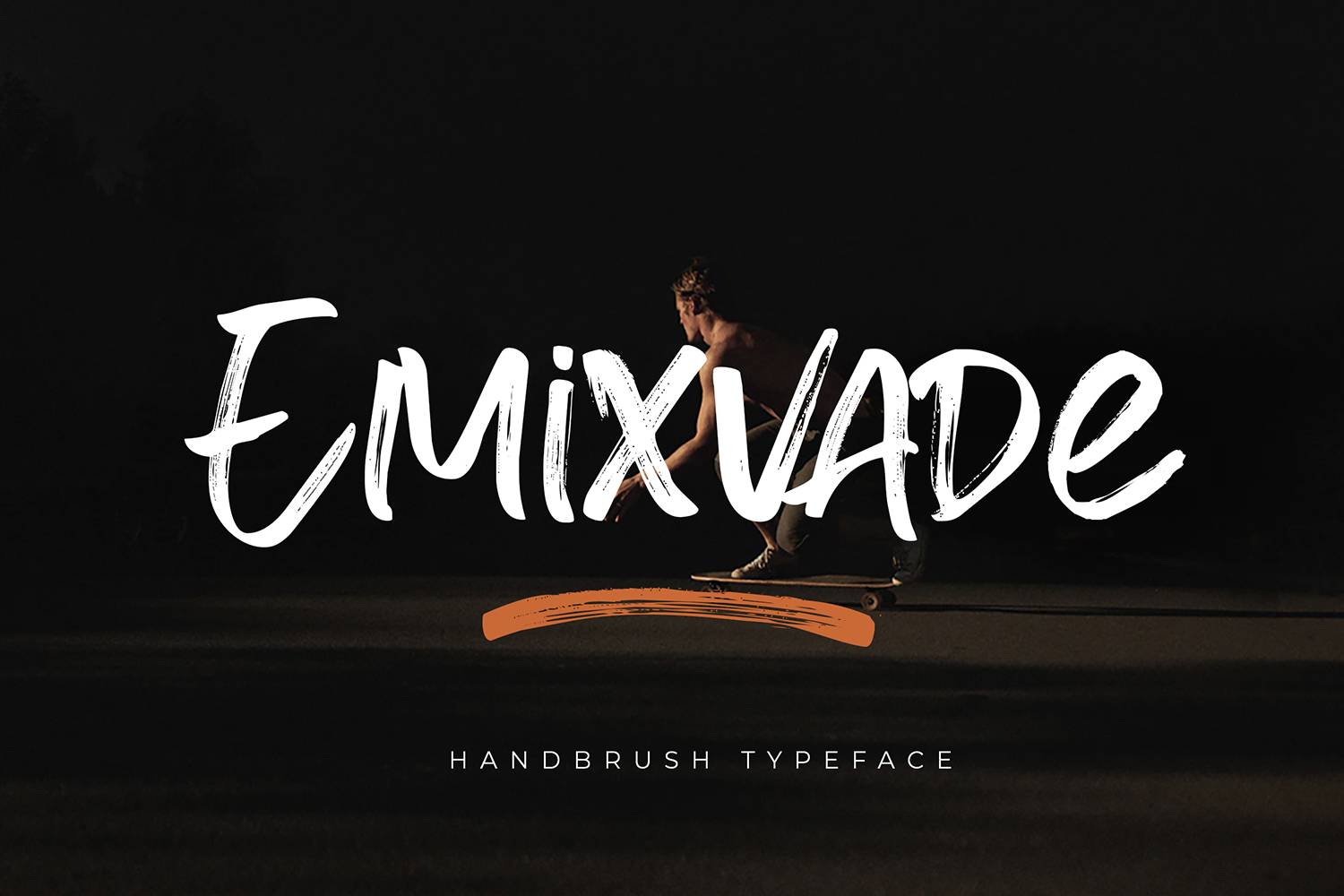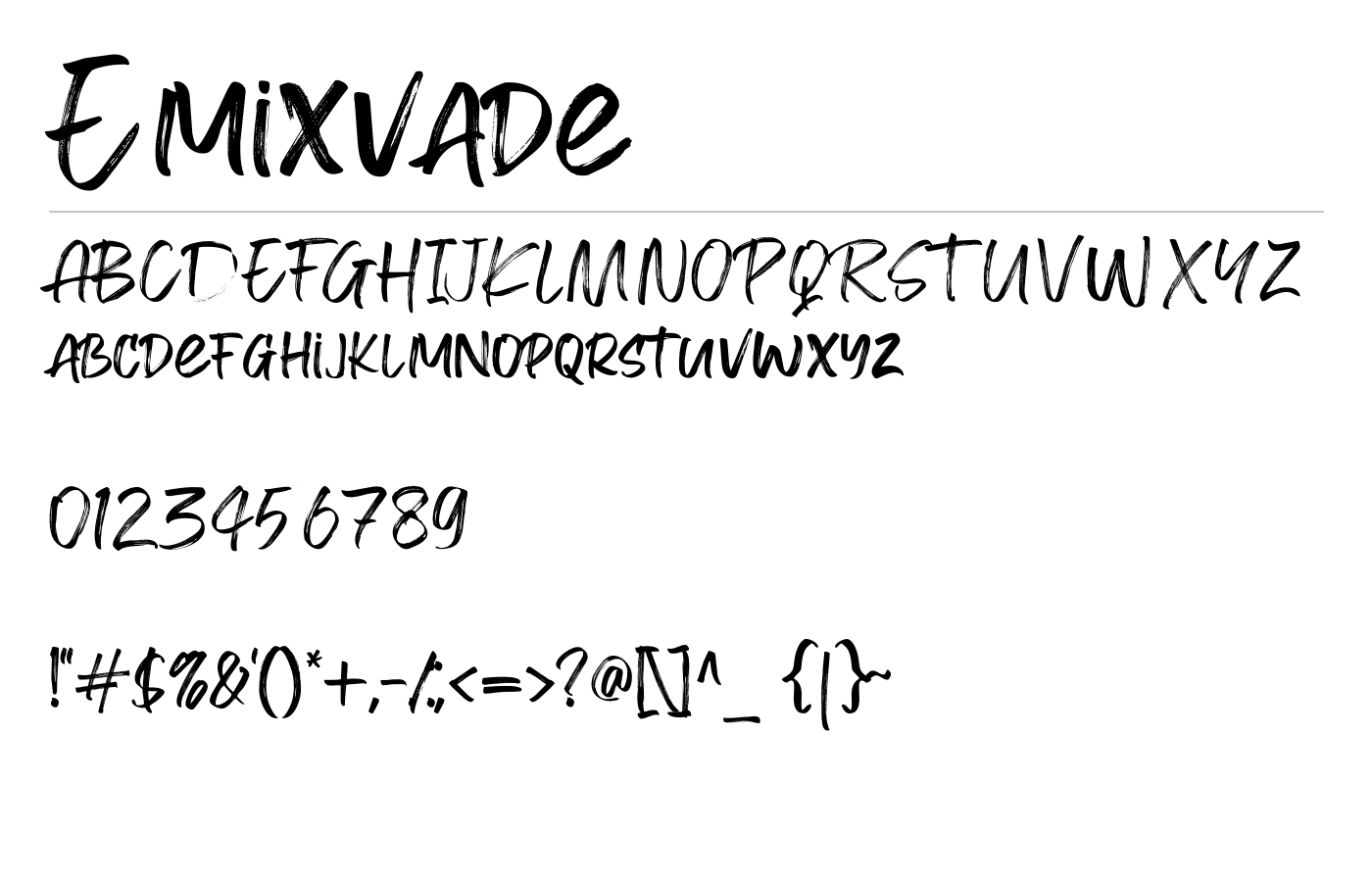
Emixvade is a lively and energetic handwritten script font featuring a bold, textured brush style with uneven strokes that give it a dynamic, casual feel. Its uppercase and lowercase letters have a natural, expressive flow, ideal for creative projects that want to convey personality and spontaneity. This font works beautifully for artistic branding, posters, and social media graphics where a personal, hand-crafted touch is desired.
Emixvade Font
About Emixvade Font
| Font family | Emixvade Font |
| Designer | Stringlabs |